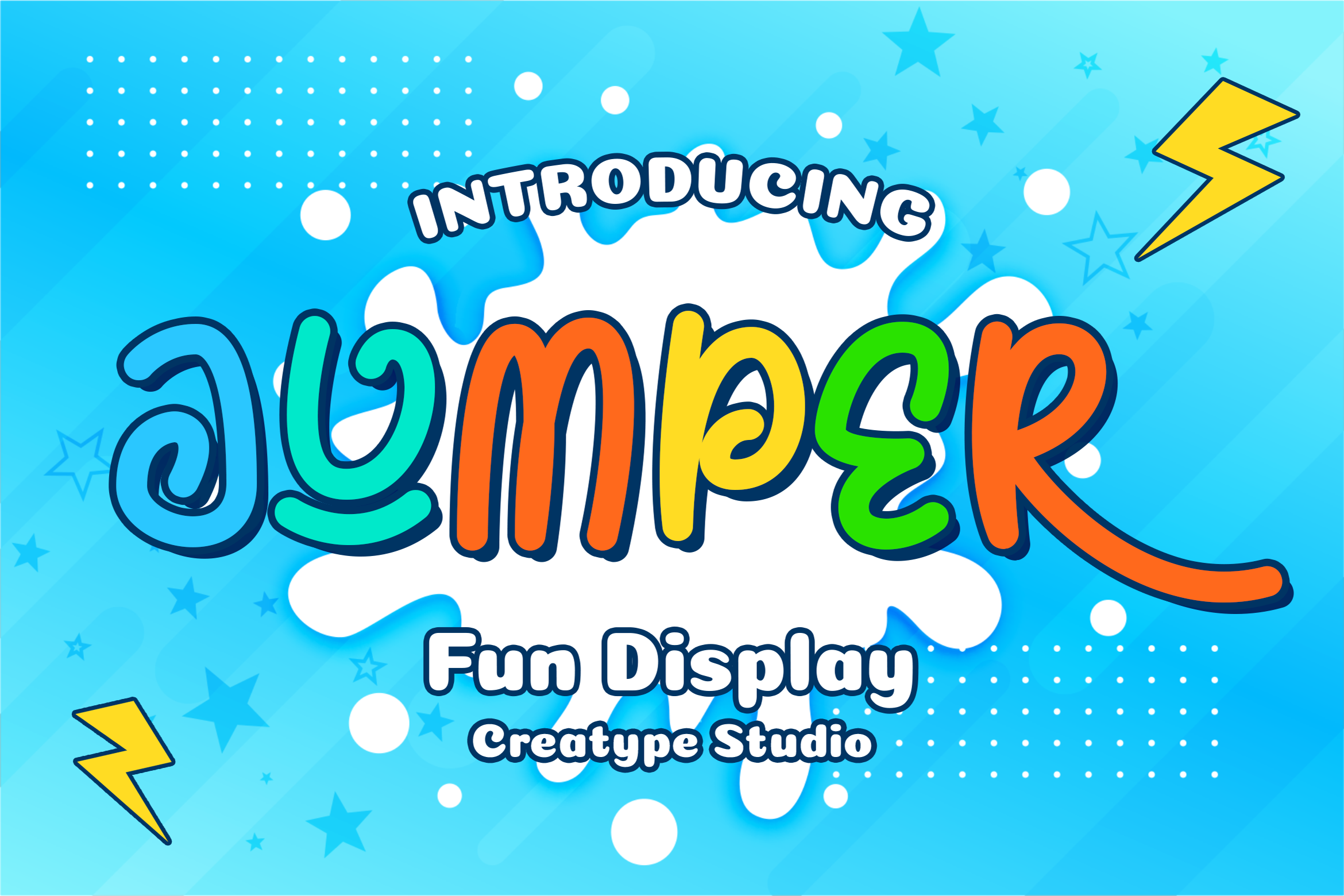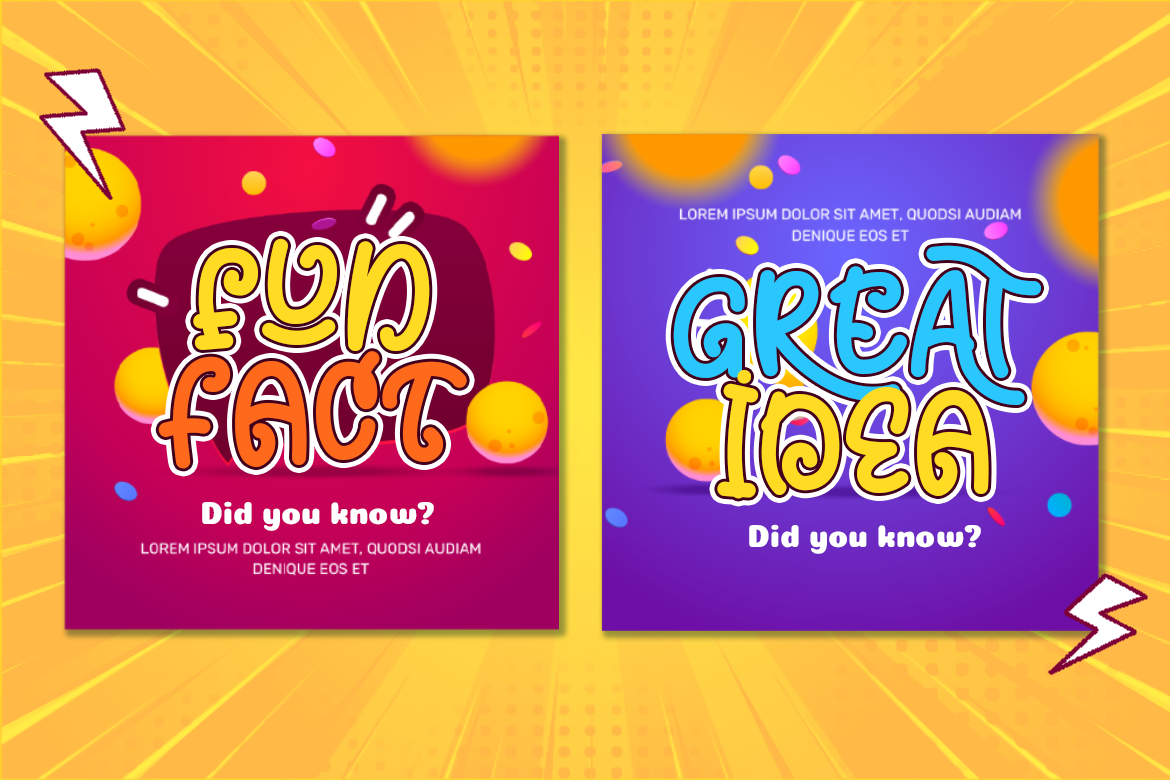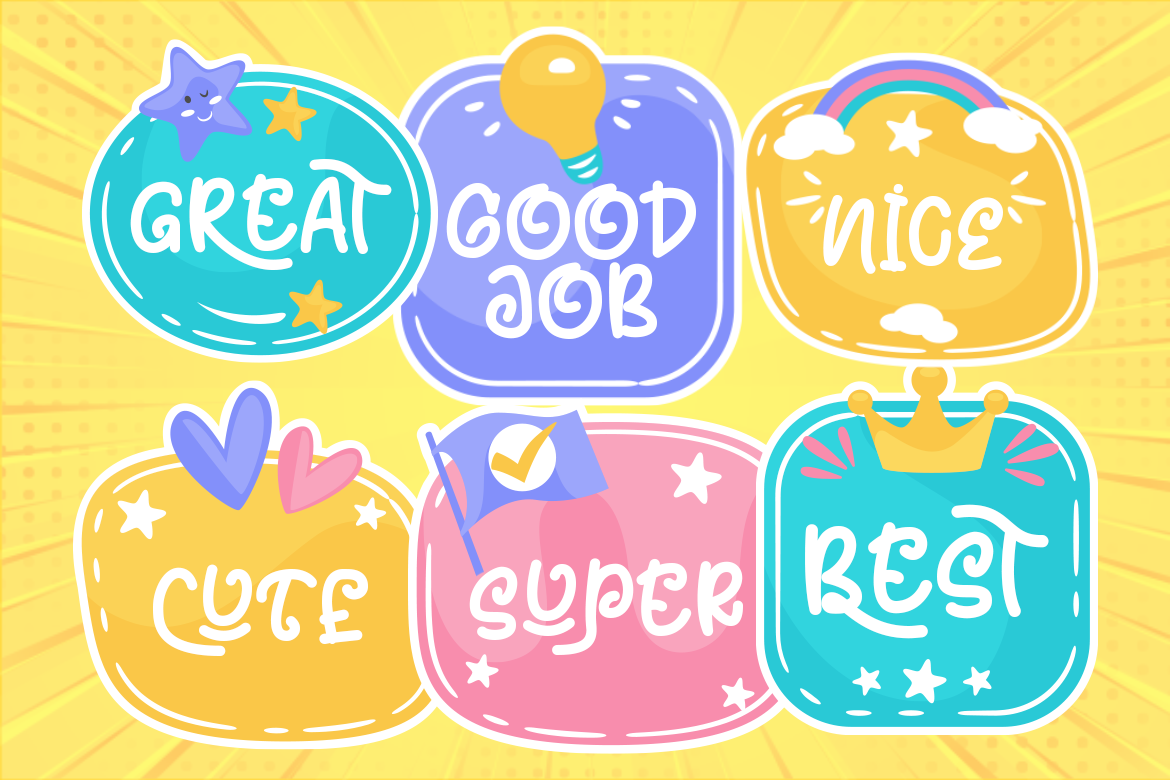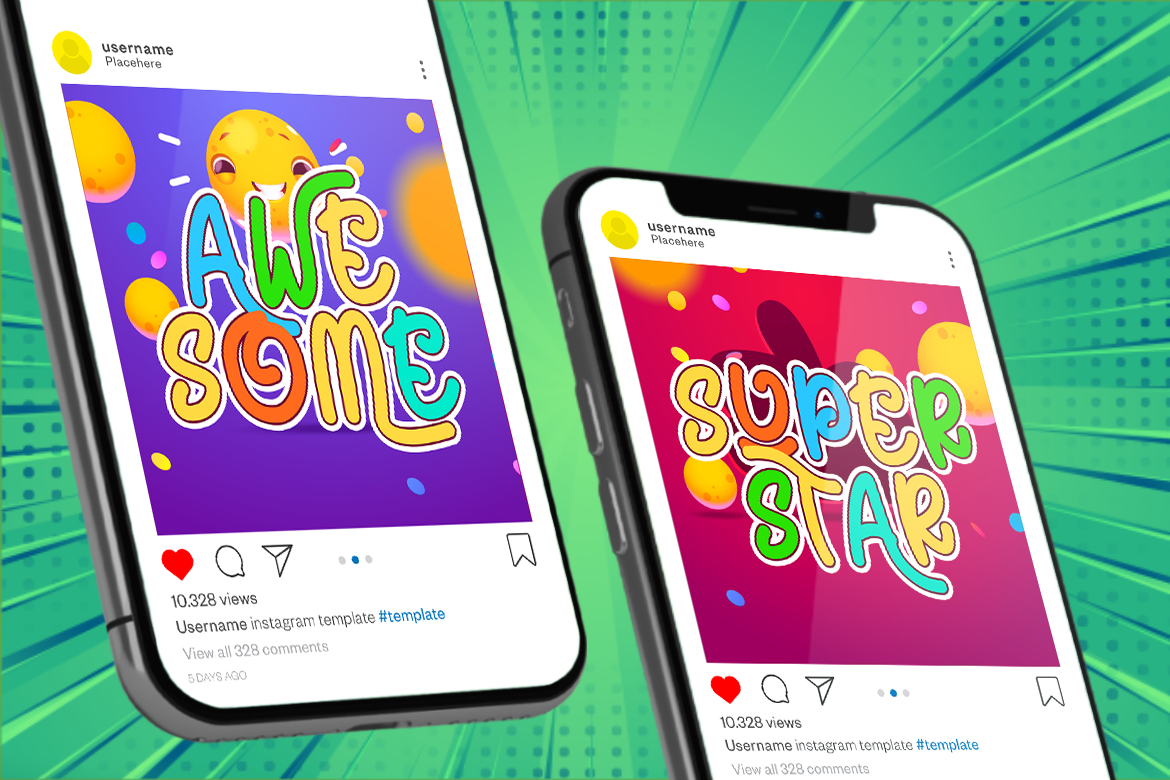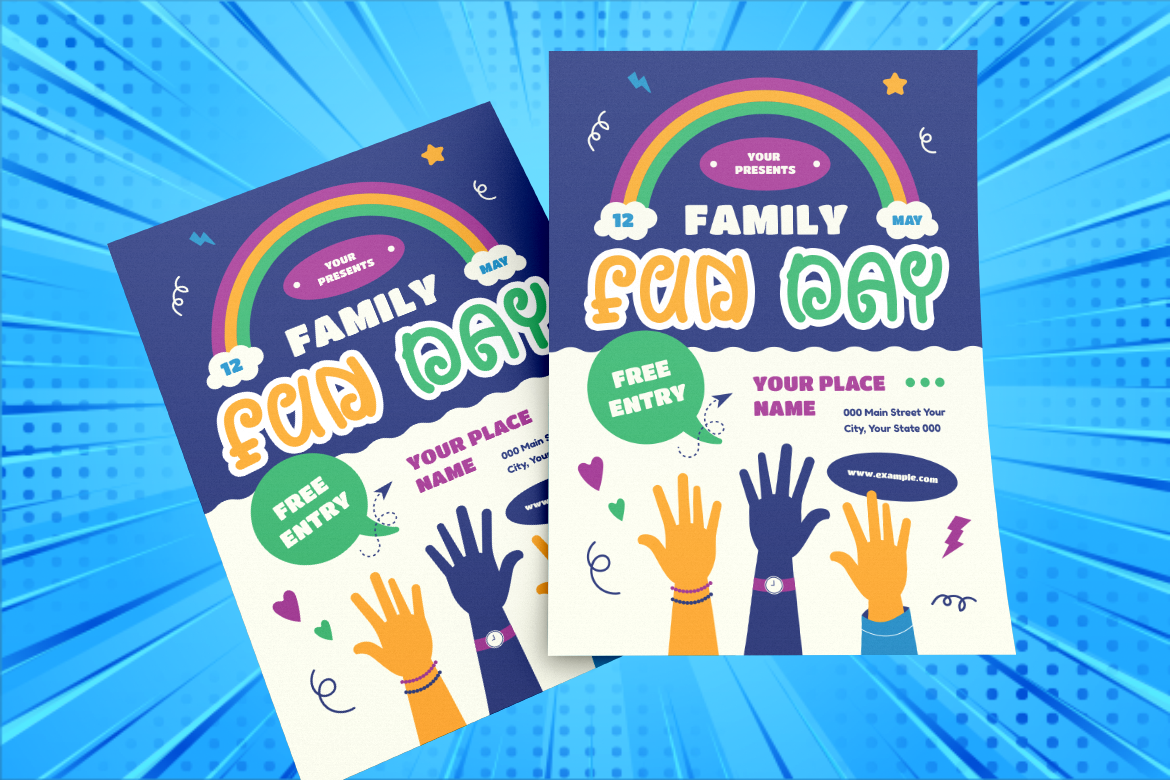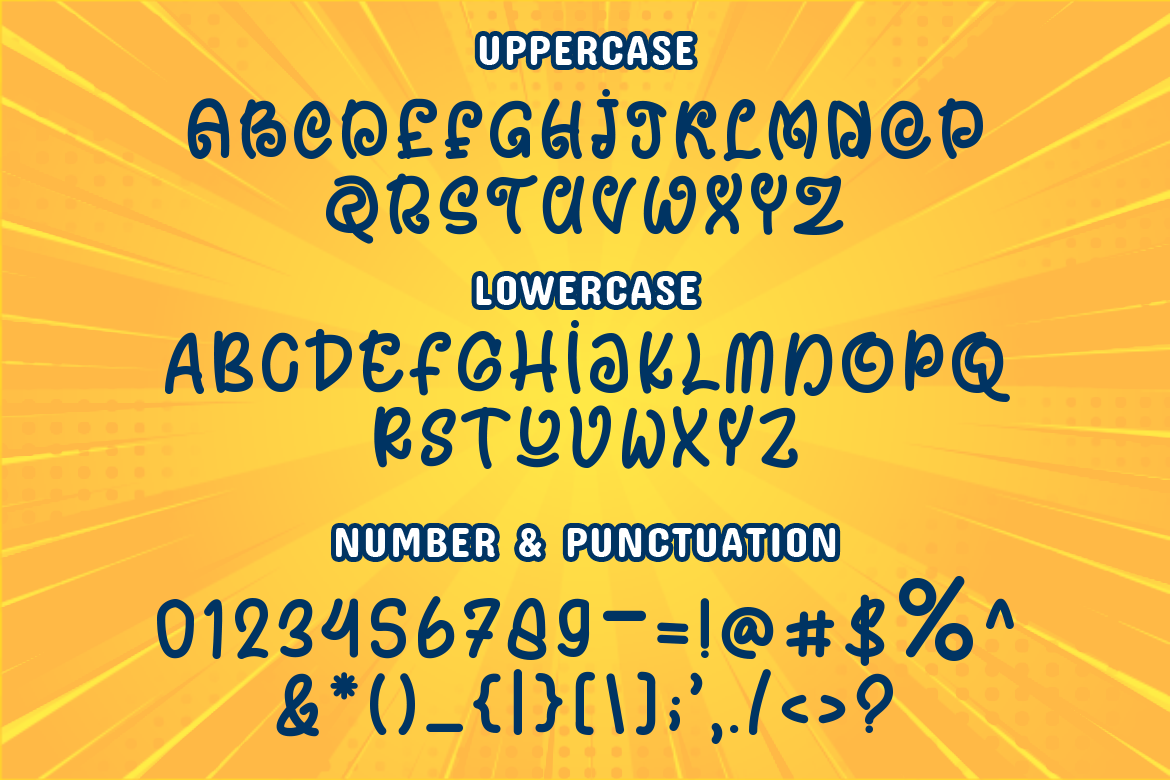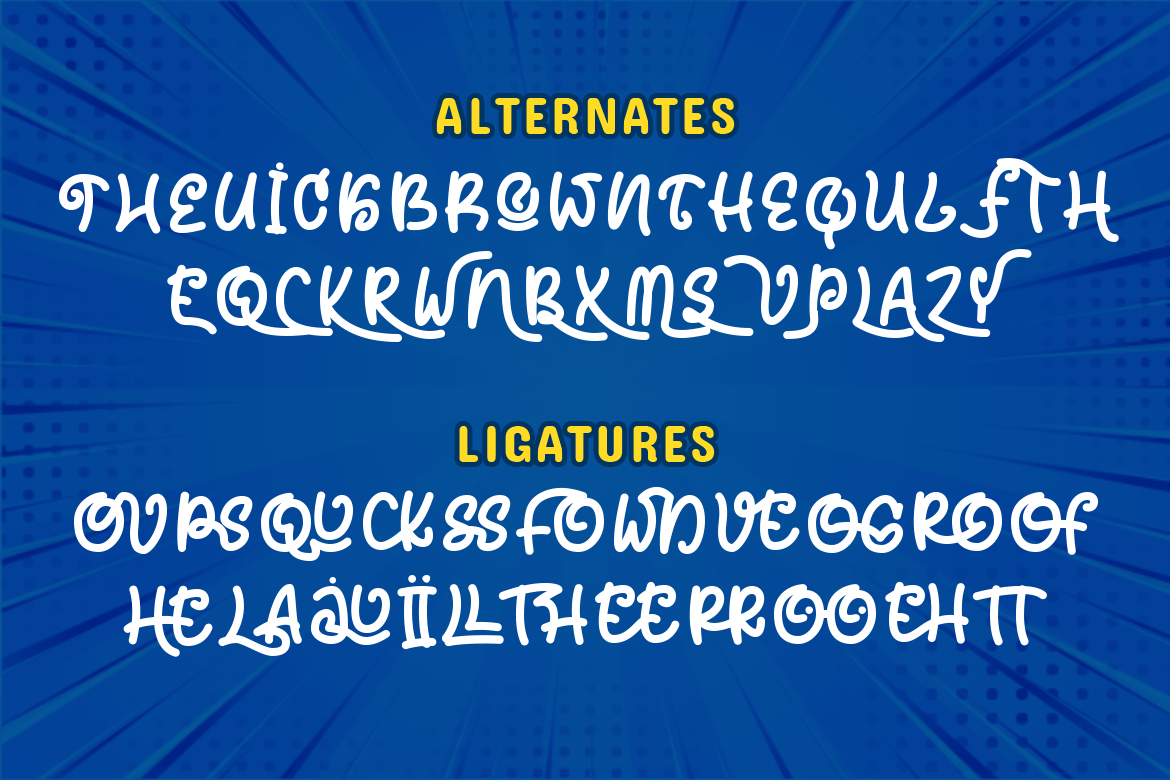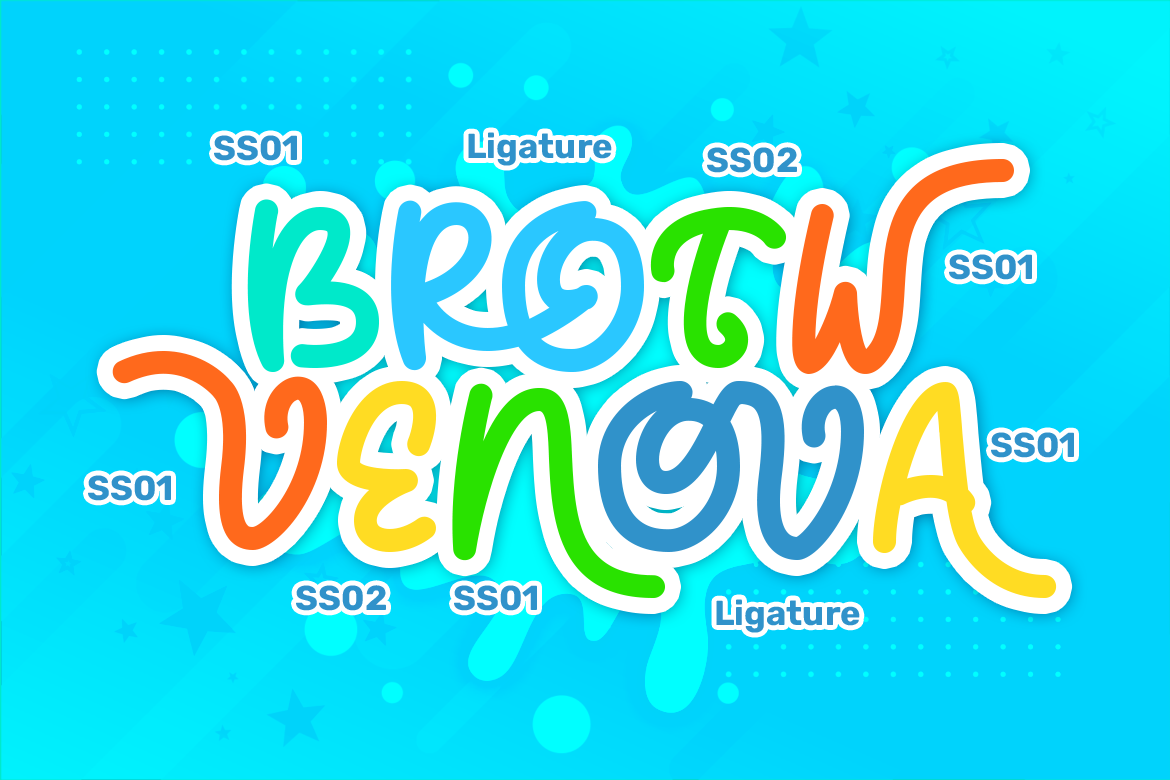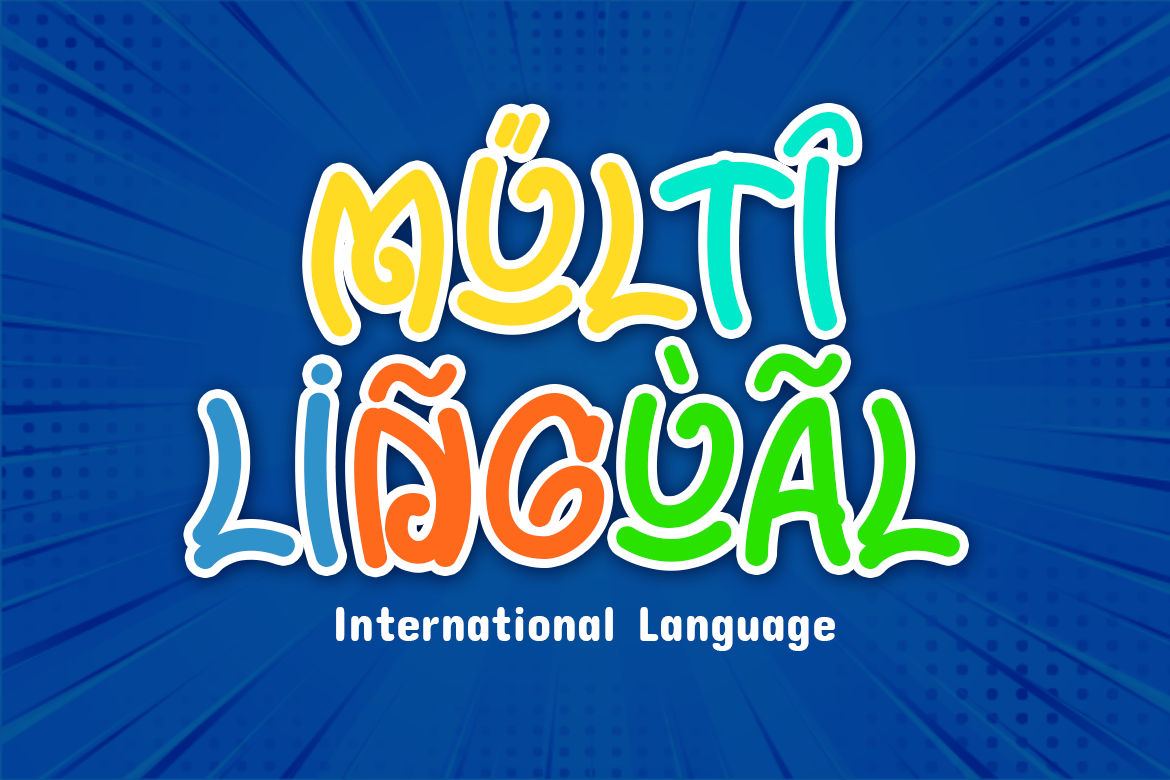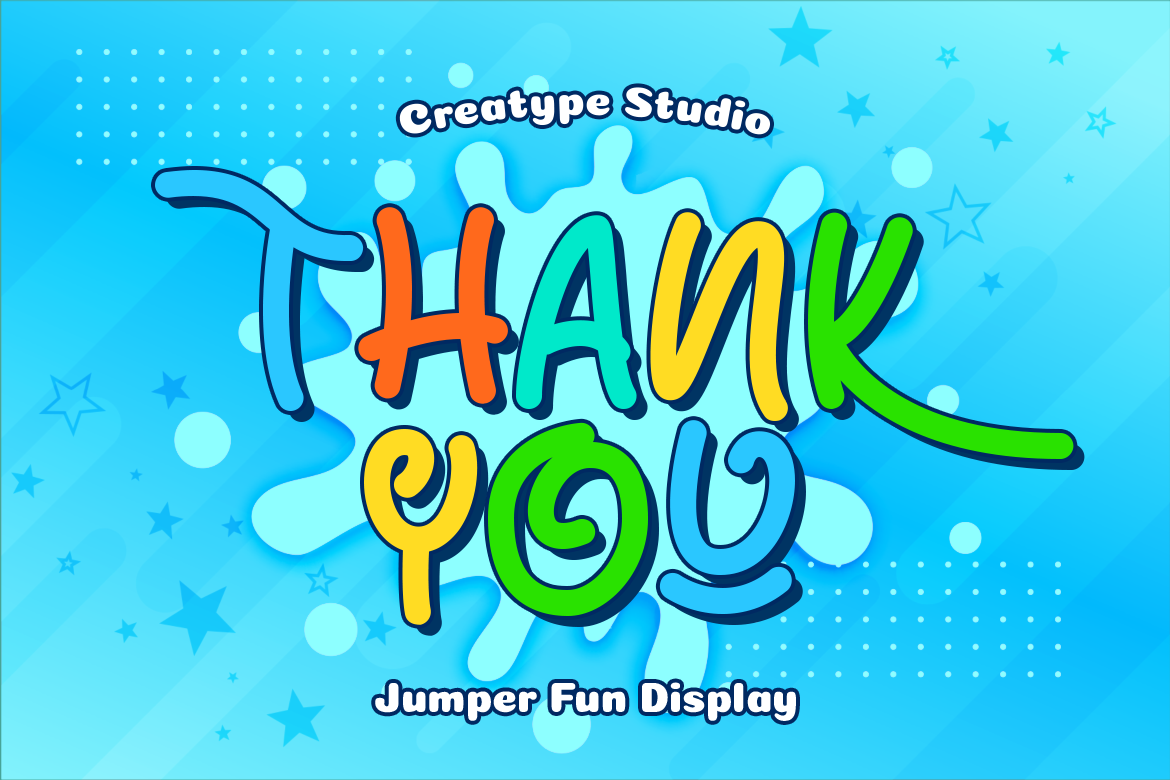
Jumper Fun Display
Jumper the fun display, the typeface that gives a bubbly and fun vibe. Level up your design game by playing with the colors on Jumper typeface. Jumper is ready to complement your design!
Jumper is perfect for branding projects, logo, wedding designs, social media posts, advertisements, product packaging, product designs, label, photography, watermark, invitation, stationery and any projects that need handwriting taste.